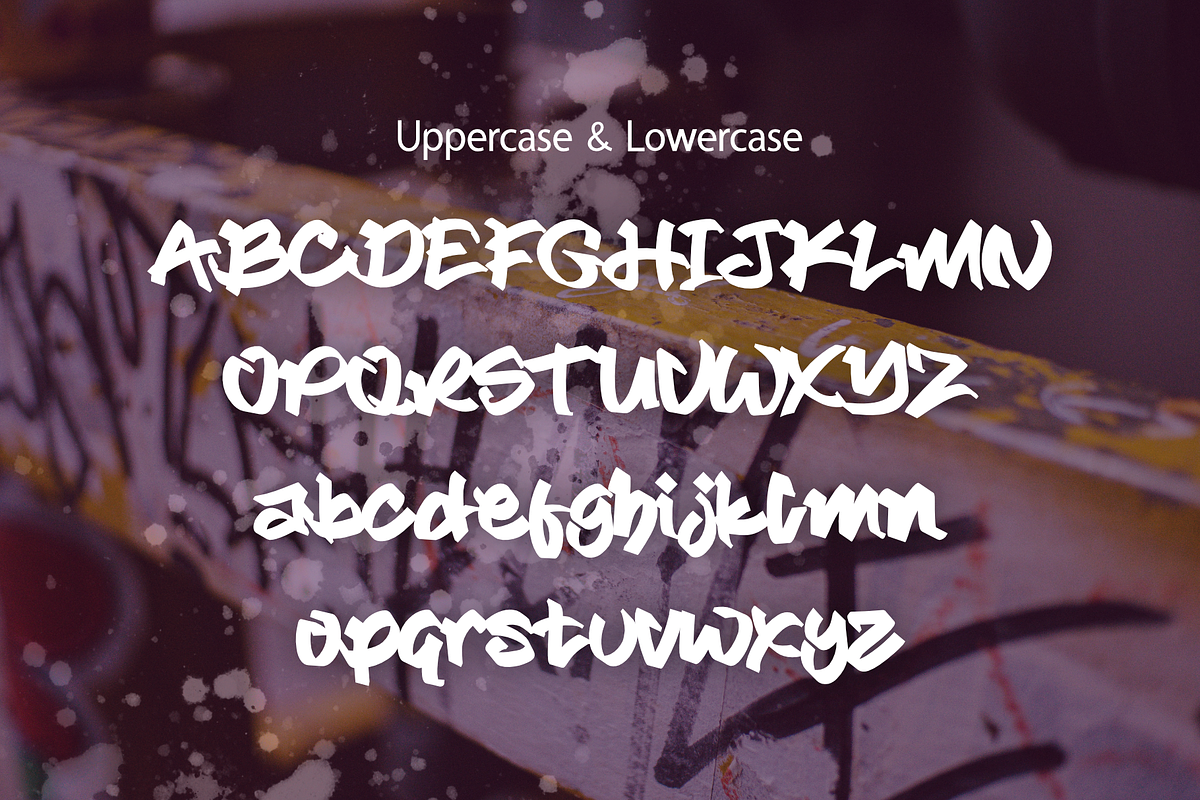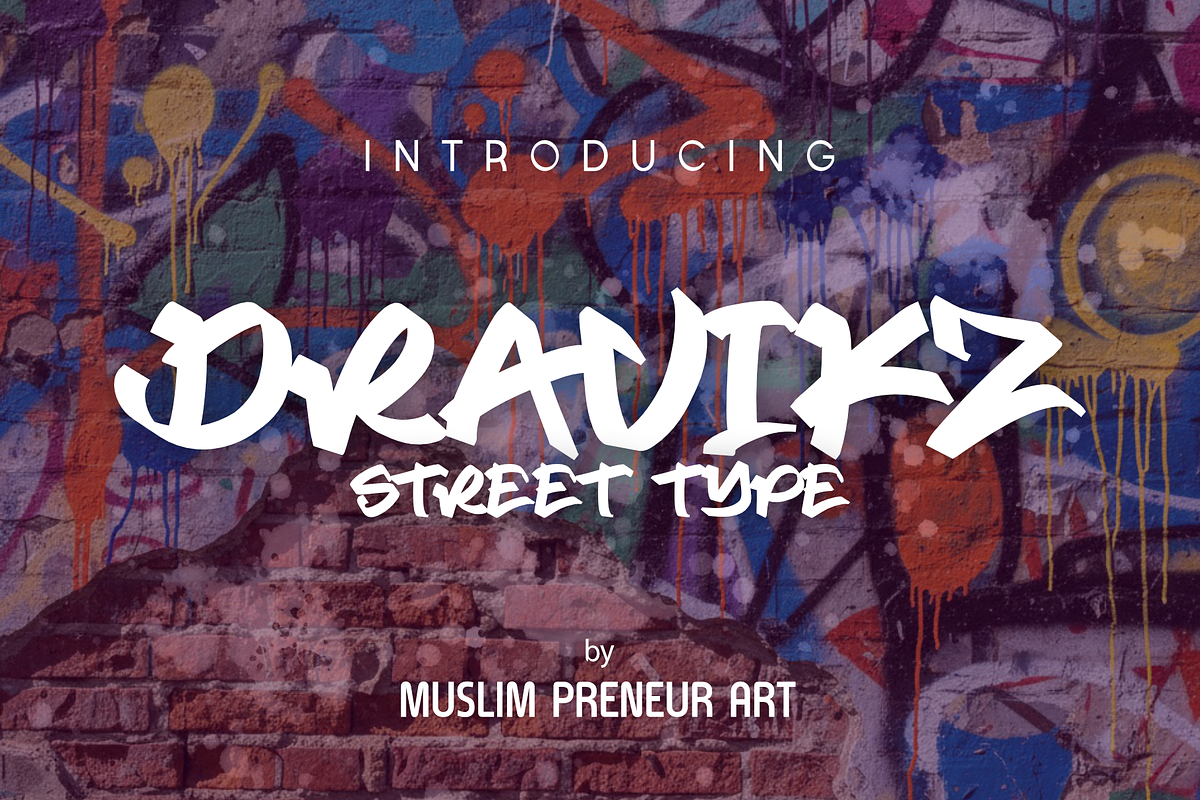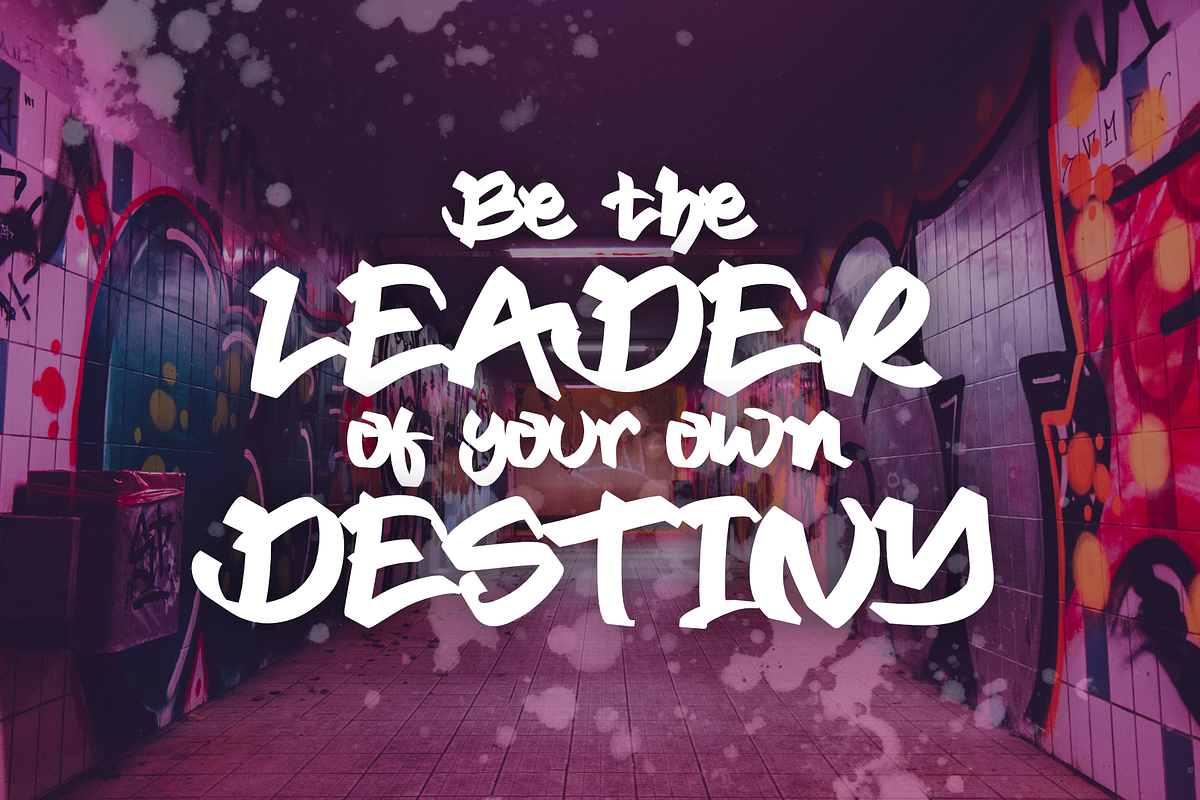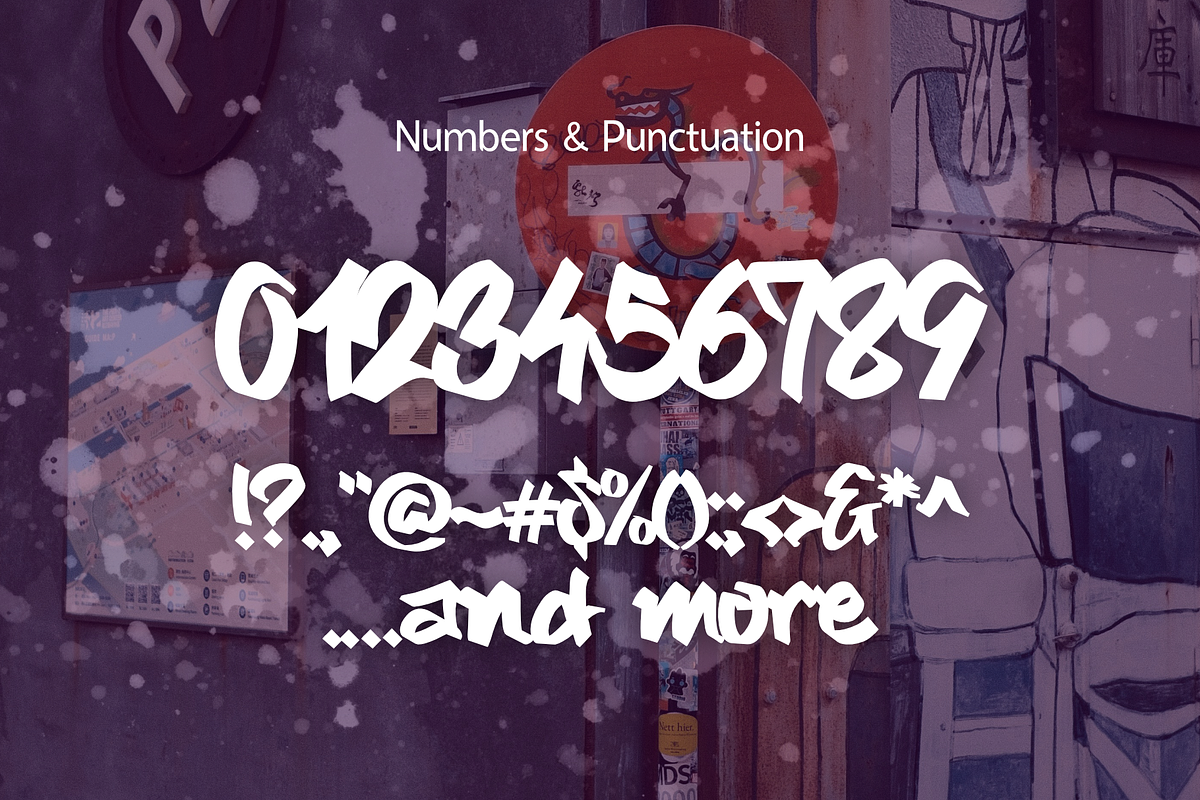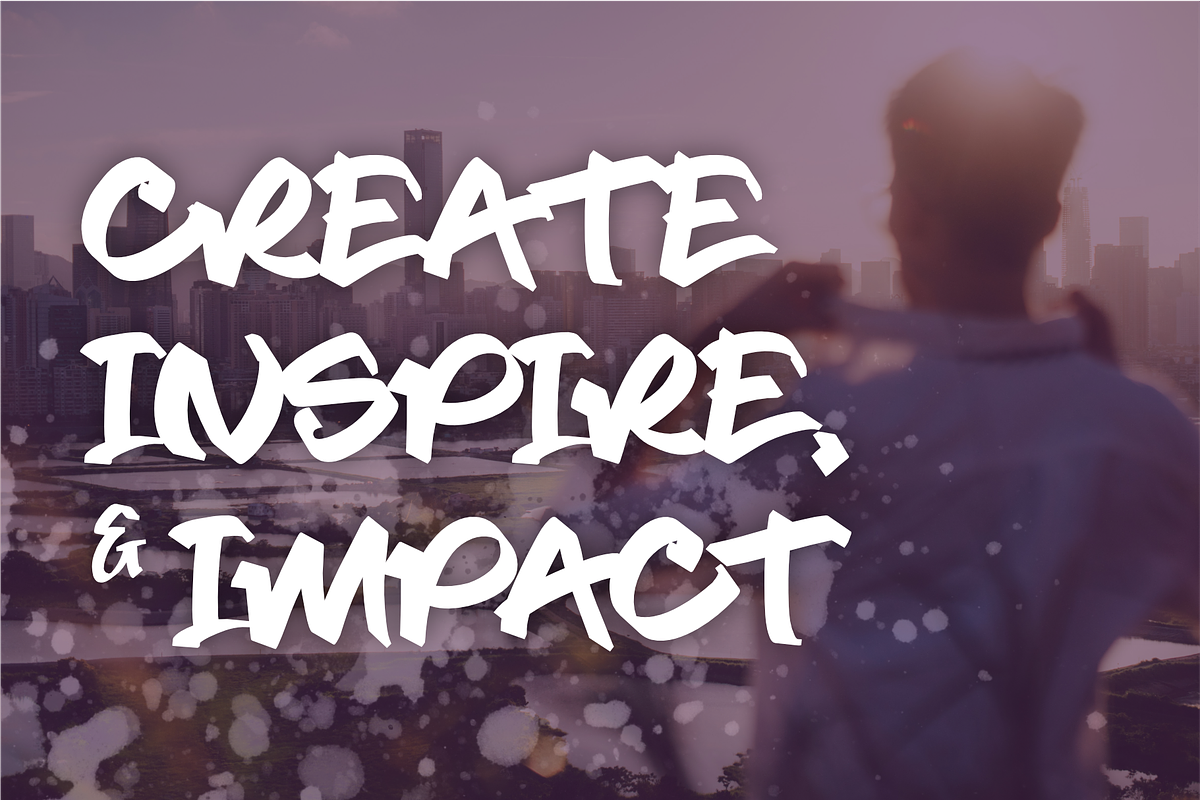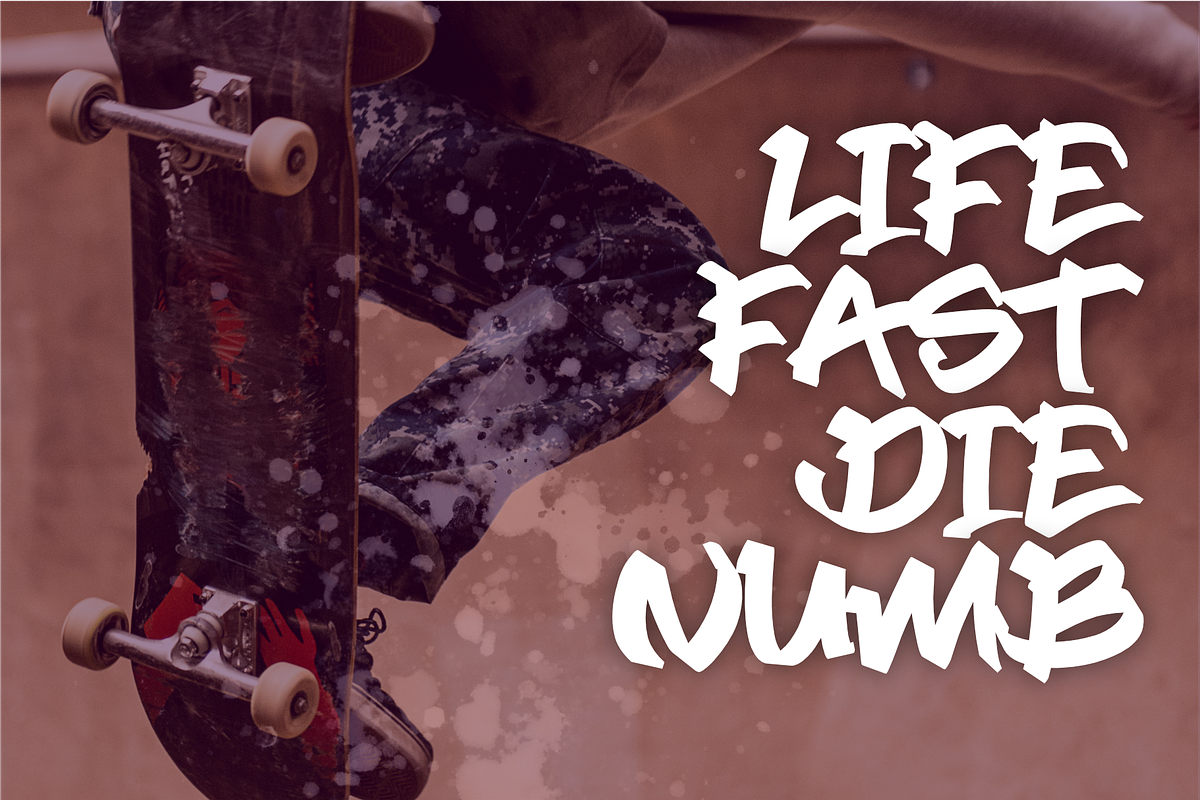
Dravikz – Urban Graffiti Display Font
Bring authentic street culture into your designs with Dravikz, a bold graffiti display font inspired by urban art, hip-hop culture, skateboarding, and modern street typography.
Designed with expressive brush strokes and energetic letterforms, Dravikz captures the raw spirit of graffiti while maintaining excellent readability. Every character delivers a powerful urban personality that instantly grabs attention, making it ideal for bold headlines, logos, posters, apparel, and creative branding.
Whether you're creating a streetwear clothing brand, music artwork, gaming graphics, YouTube thumbnails, or eye-catching merchandise, Dravikz helps your designs stand out with an unmistakable street vibe.
Display Typography
Uppercase Letters
Lowercase Letters
Symbols
Bold Display Style
Urban Graffiti Design
Handcrafted Letterforms
Easy to Read
Perfect for Large Headlines
Dravikz is designed for creators who want to make a bold statement. Whether you're working on branding, posters, apparel, music, or digital content, this graffiti-inspired display font brings authentic urban energy to every project.